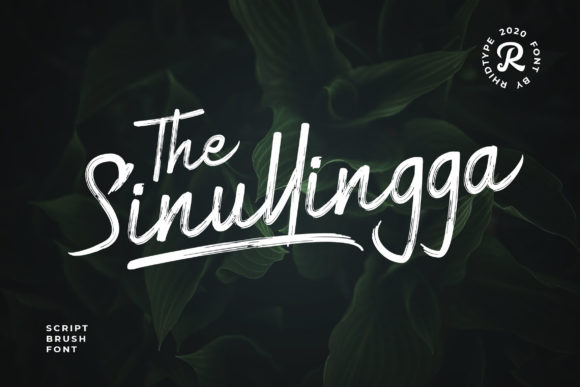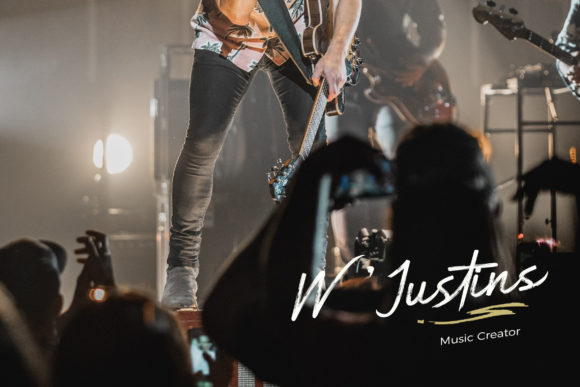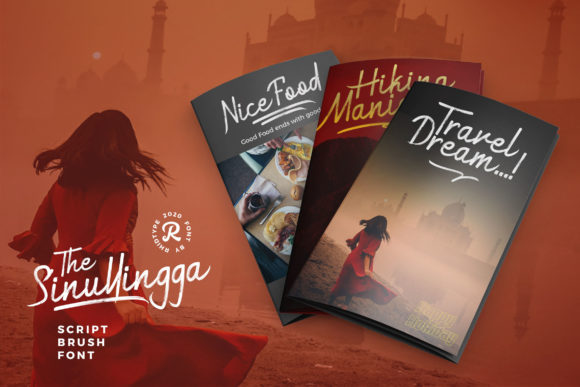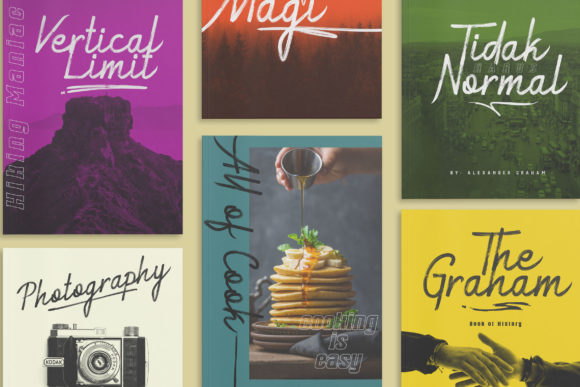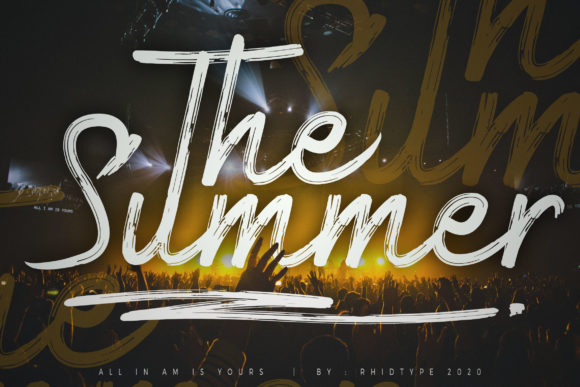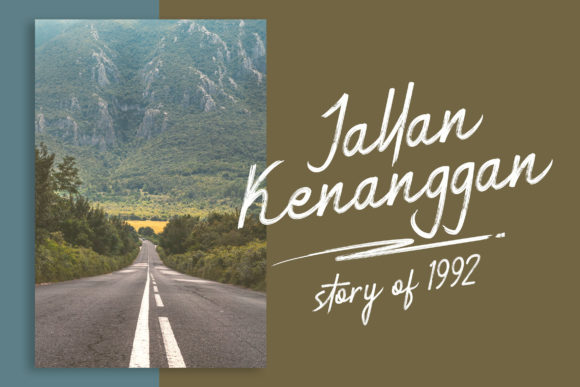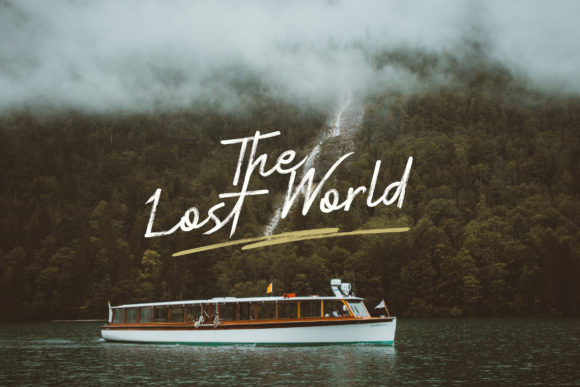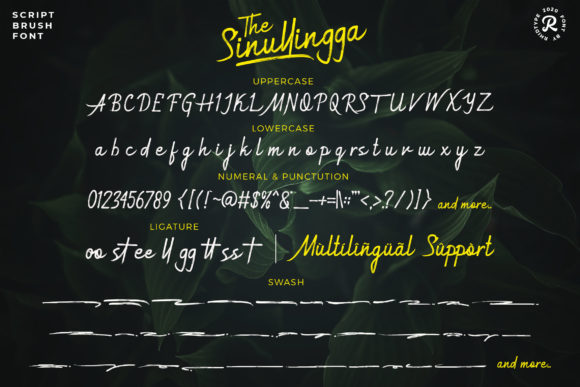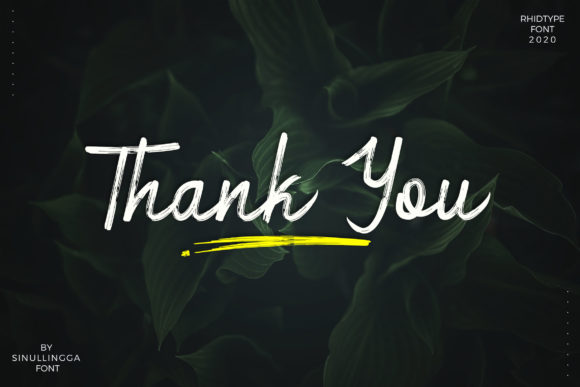
Sinullingga Font
About Sinullingga Font
Sinullingga is a lovely, brushed handwritten font. No matter the topic, this font will be an incredibly asset to your fonts’ library, as it has the potential to elevate any creation.